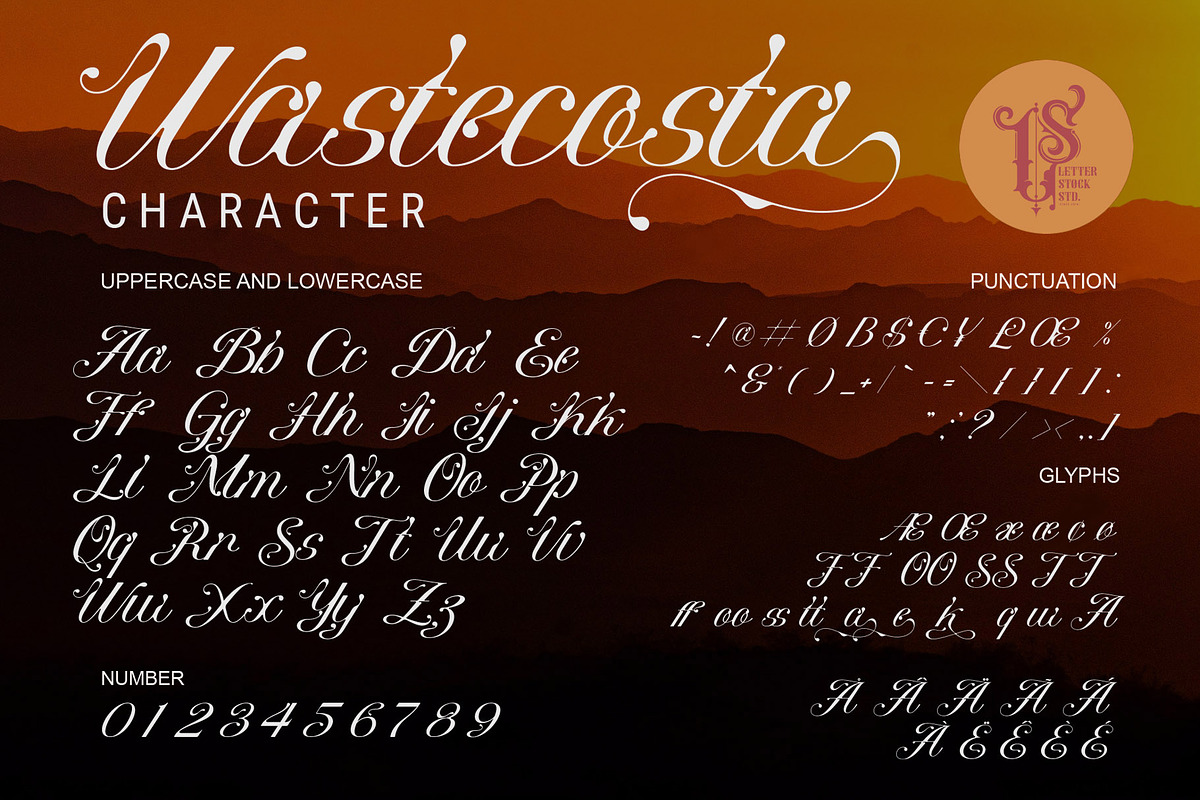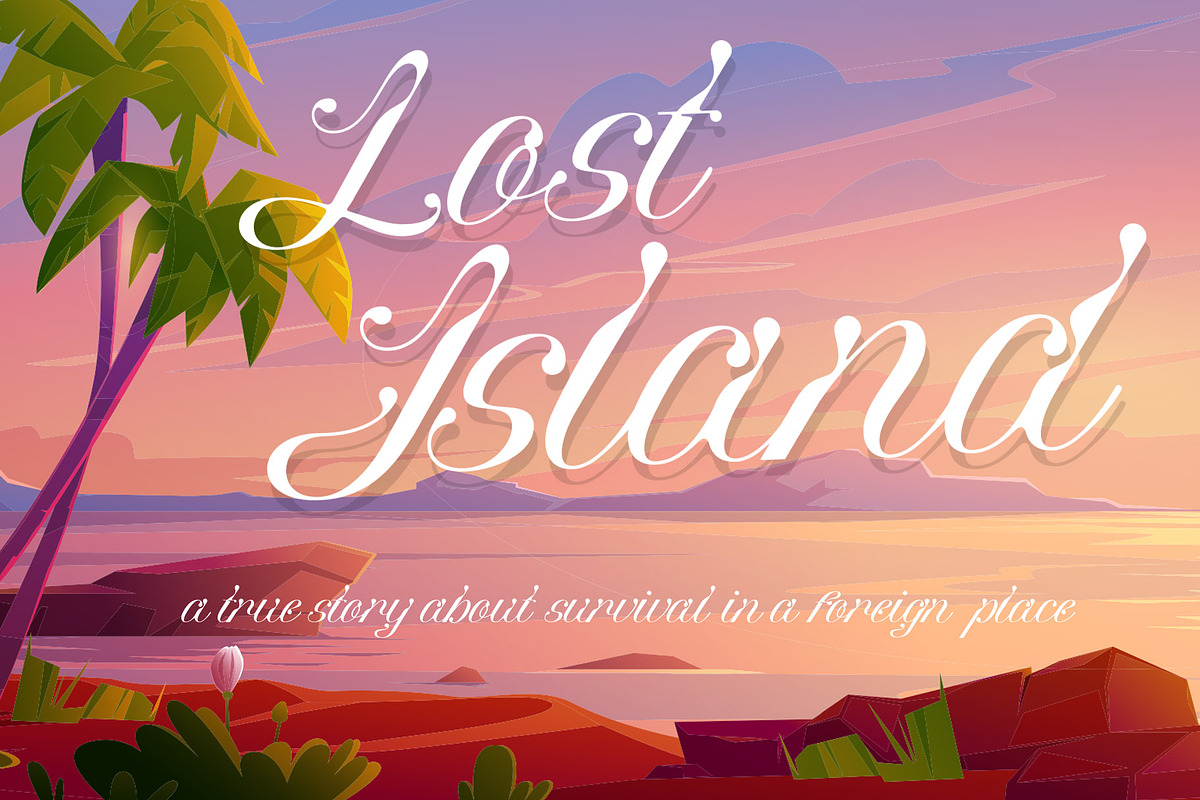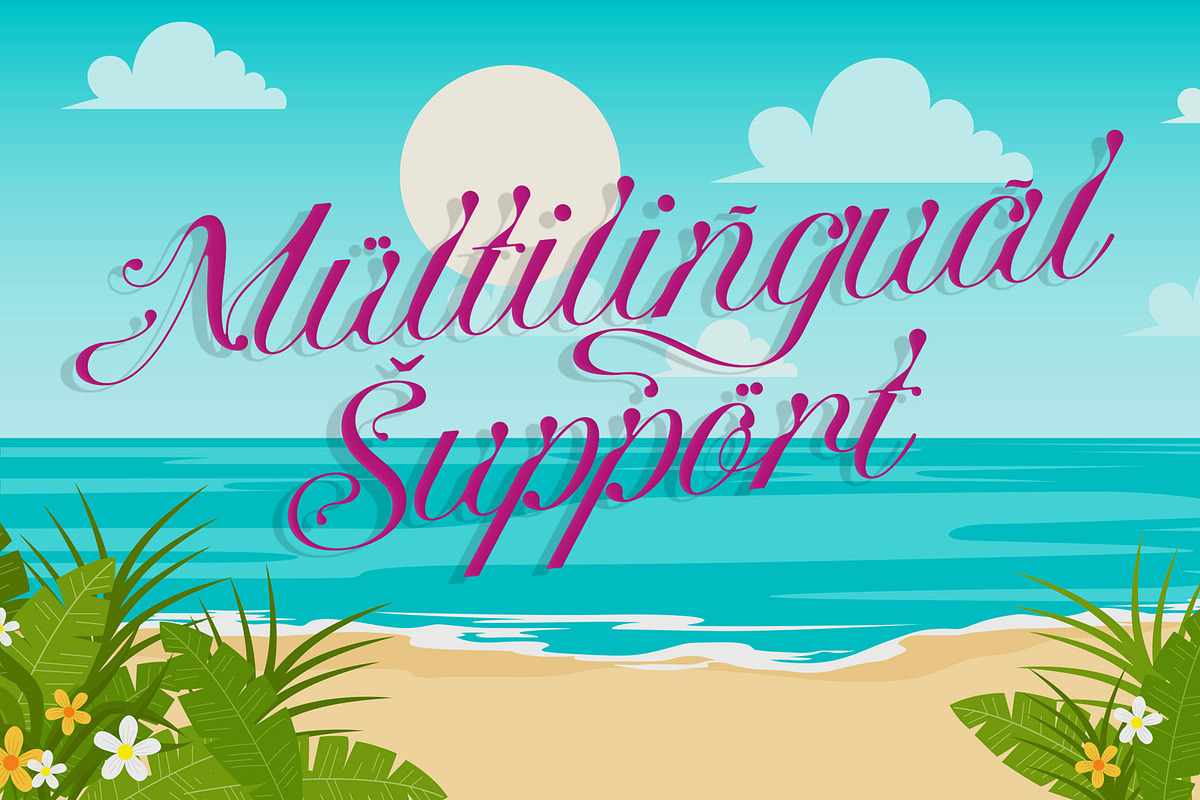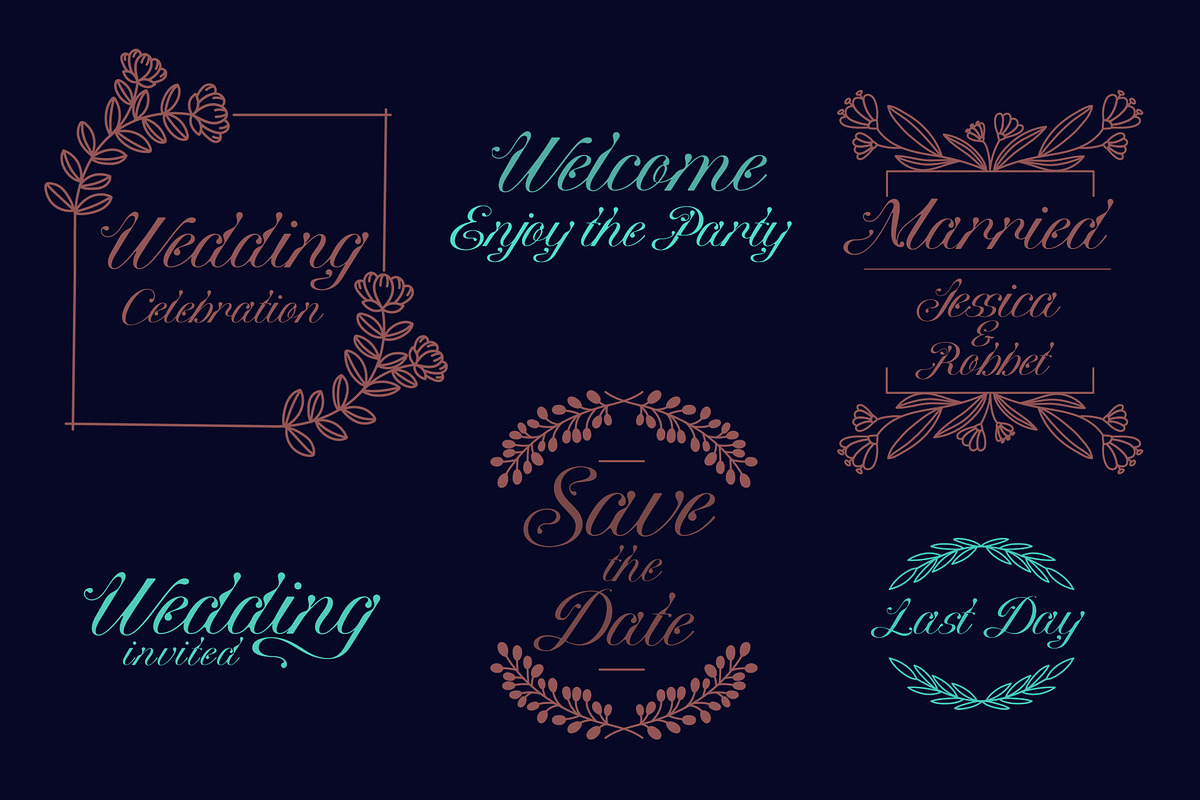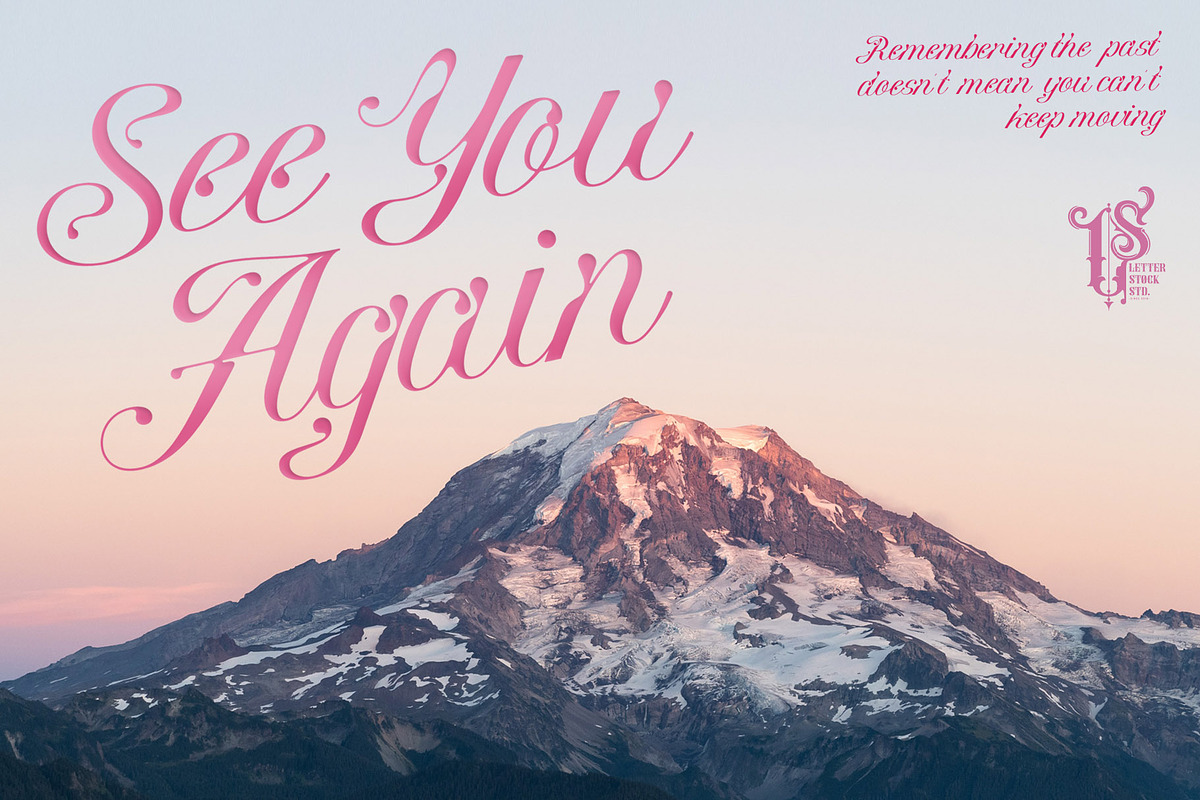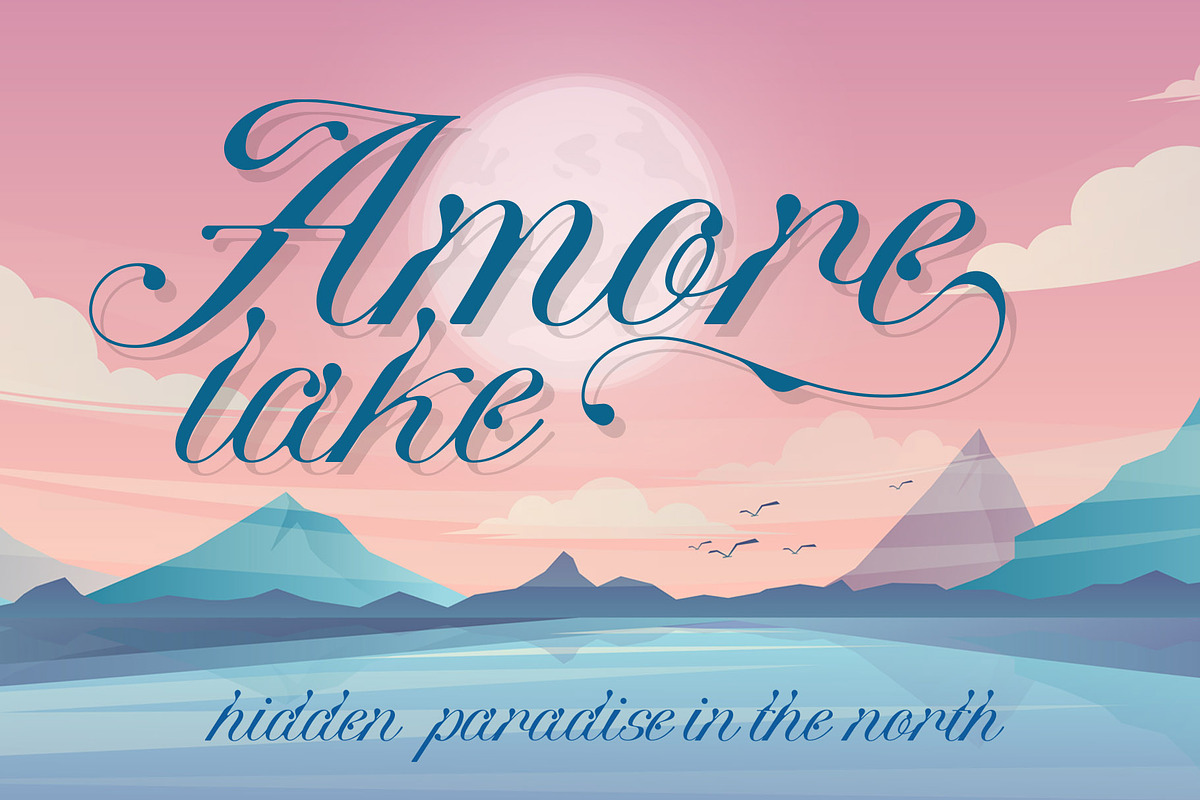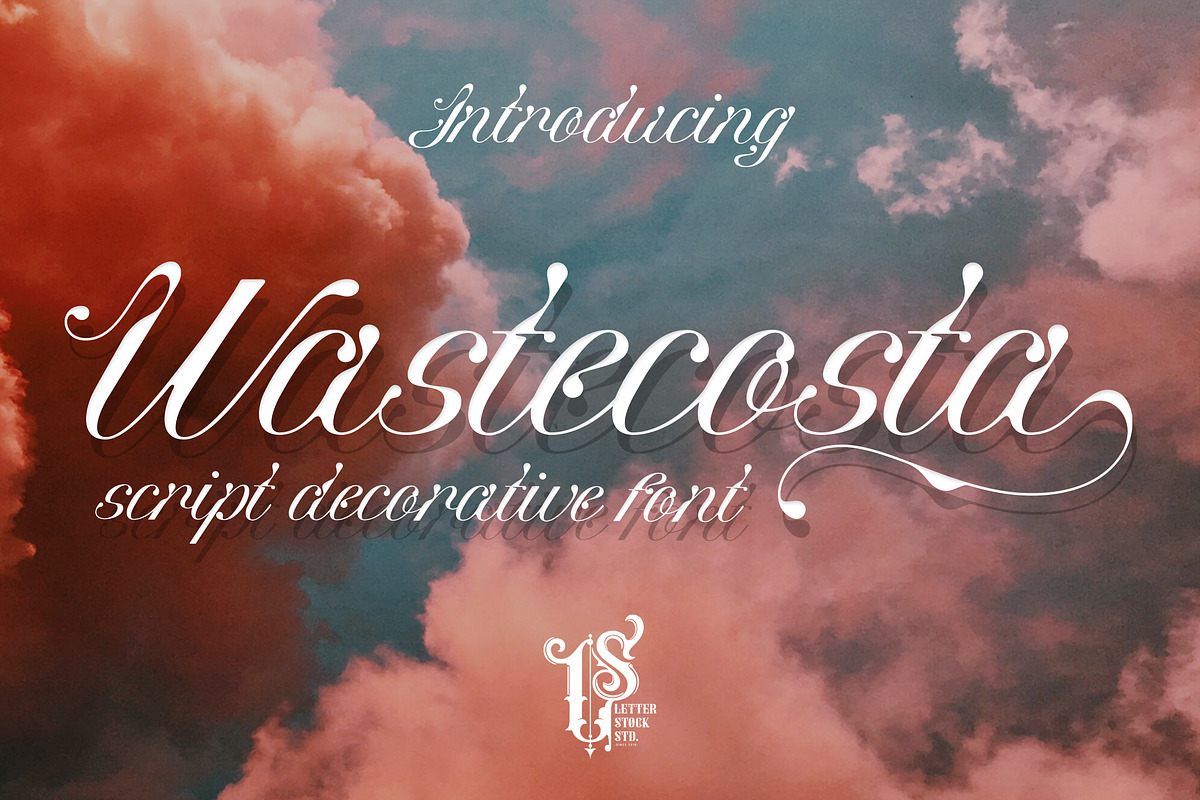
Wastecosta
Wastecosta Font
This pair was inspired by the vintage lettering poster design that i saw on some coffee shop, It was crafted by hand specially to add natural handmade feeling in its brand identity than i make it clean with pentool.
Opentype features Wastecosta font has 203 character set included Wastecosta Font is very good looking in logo, labels, product packaging, invitations for wedding, party etc, it's also good looking font for your advertising design and others.